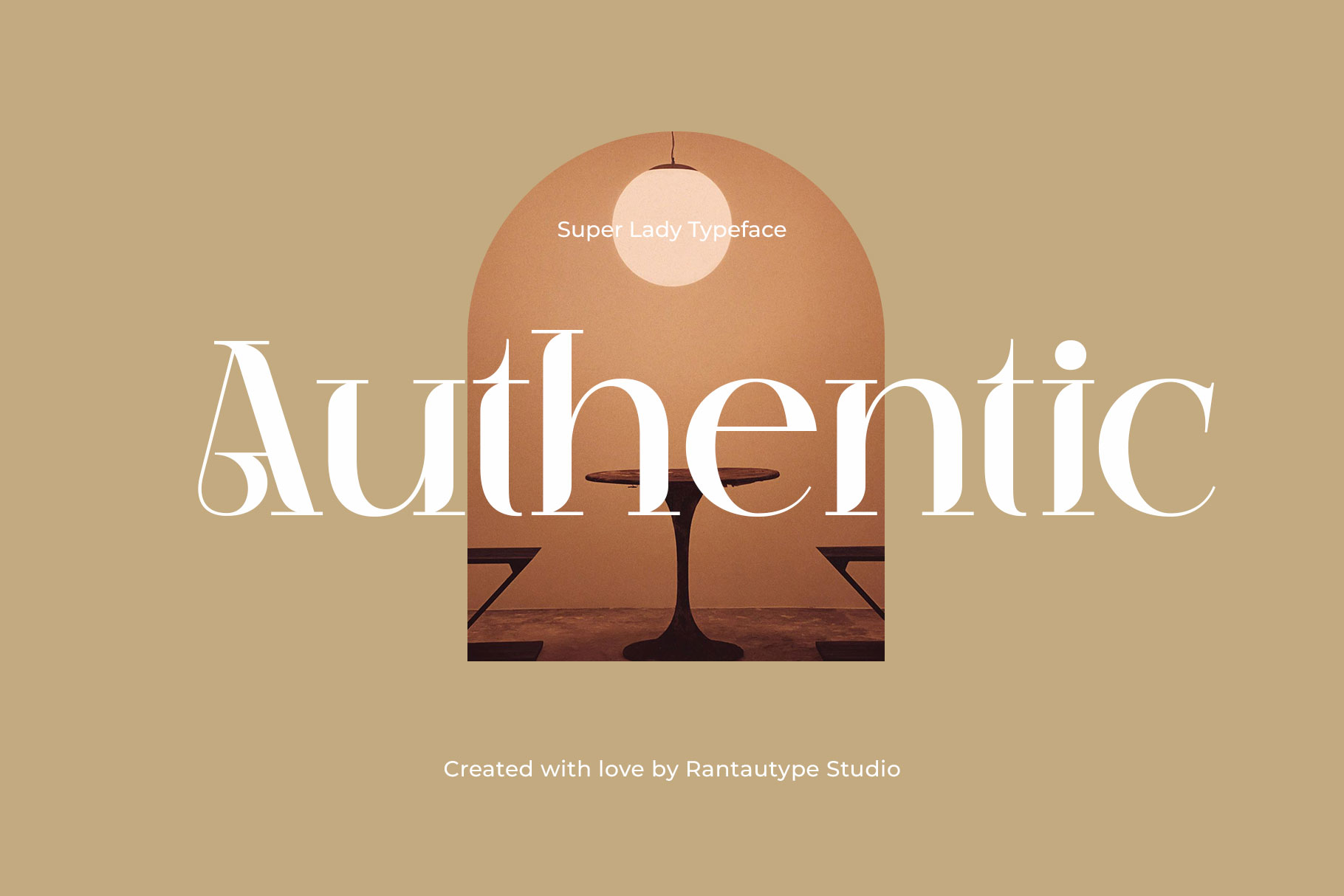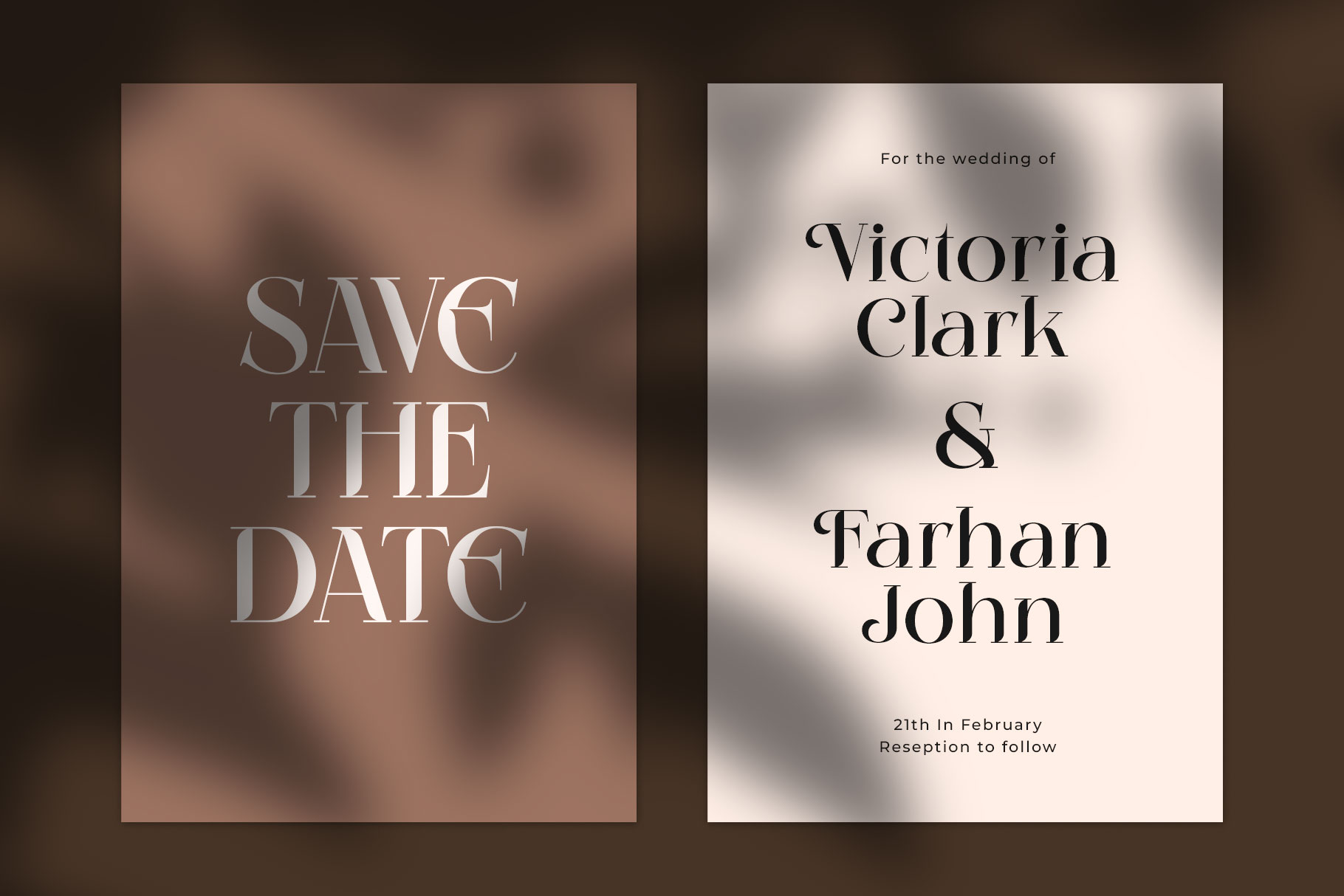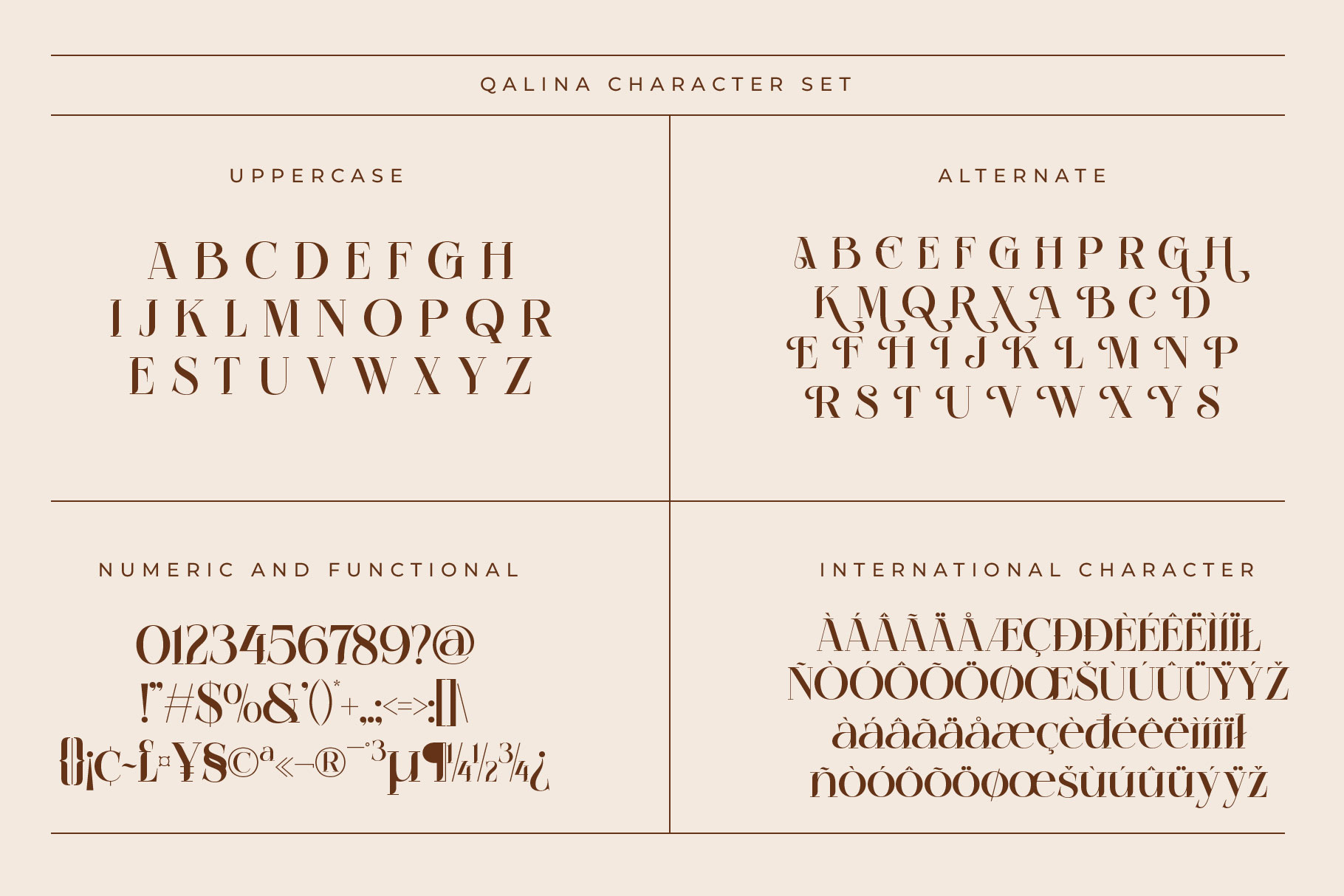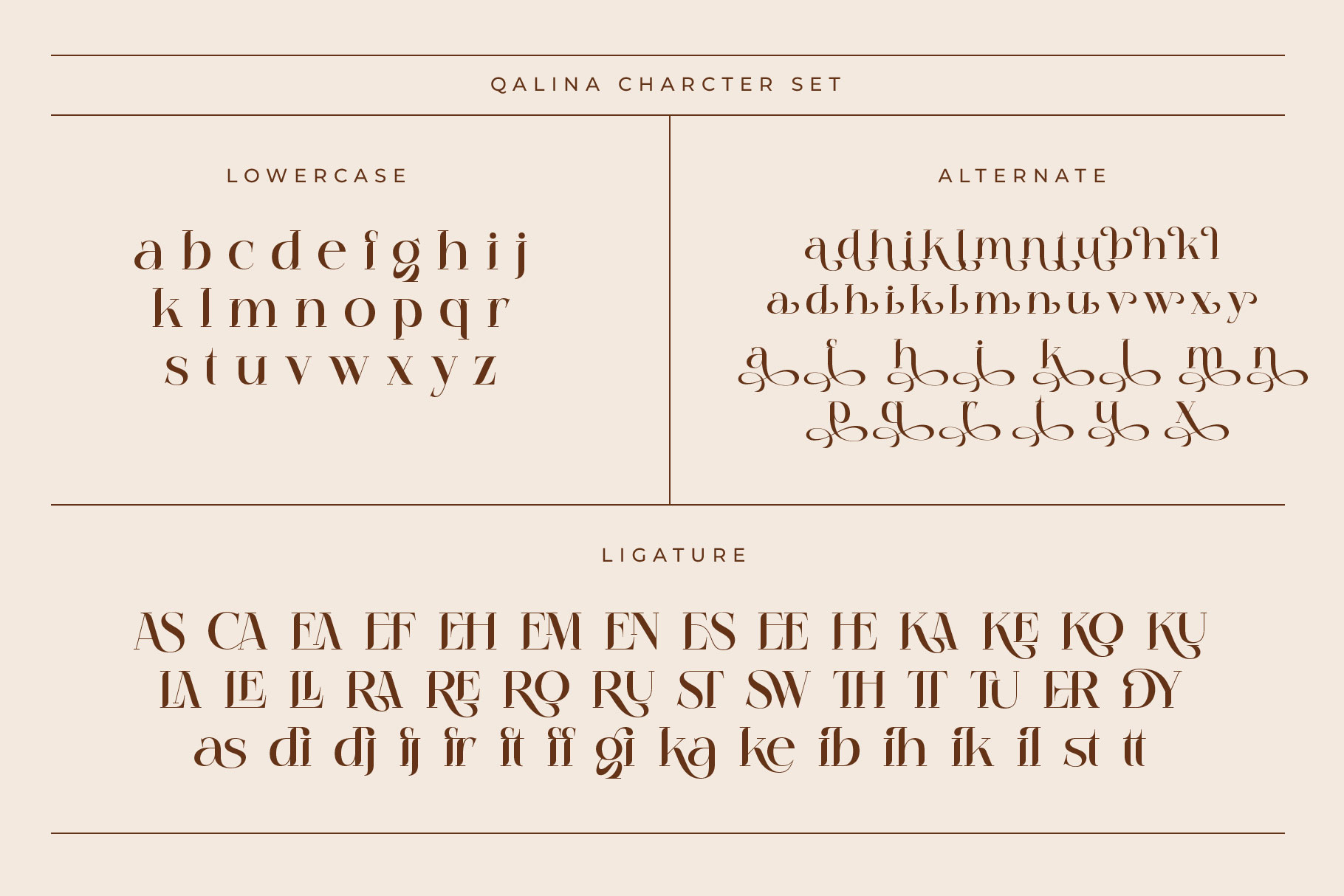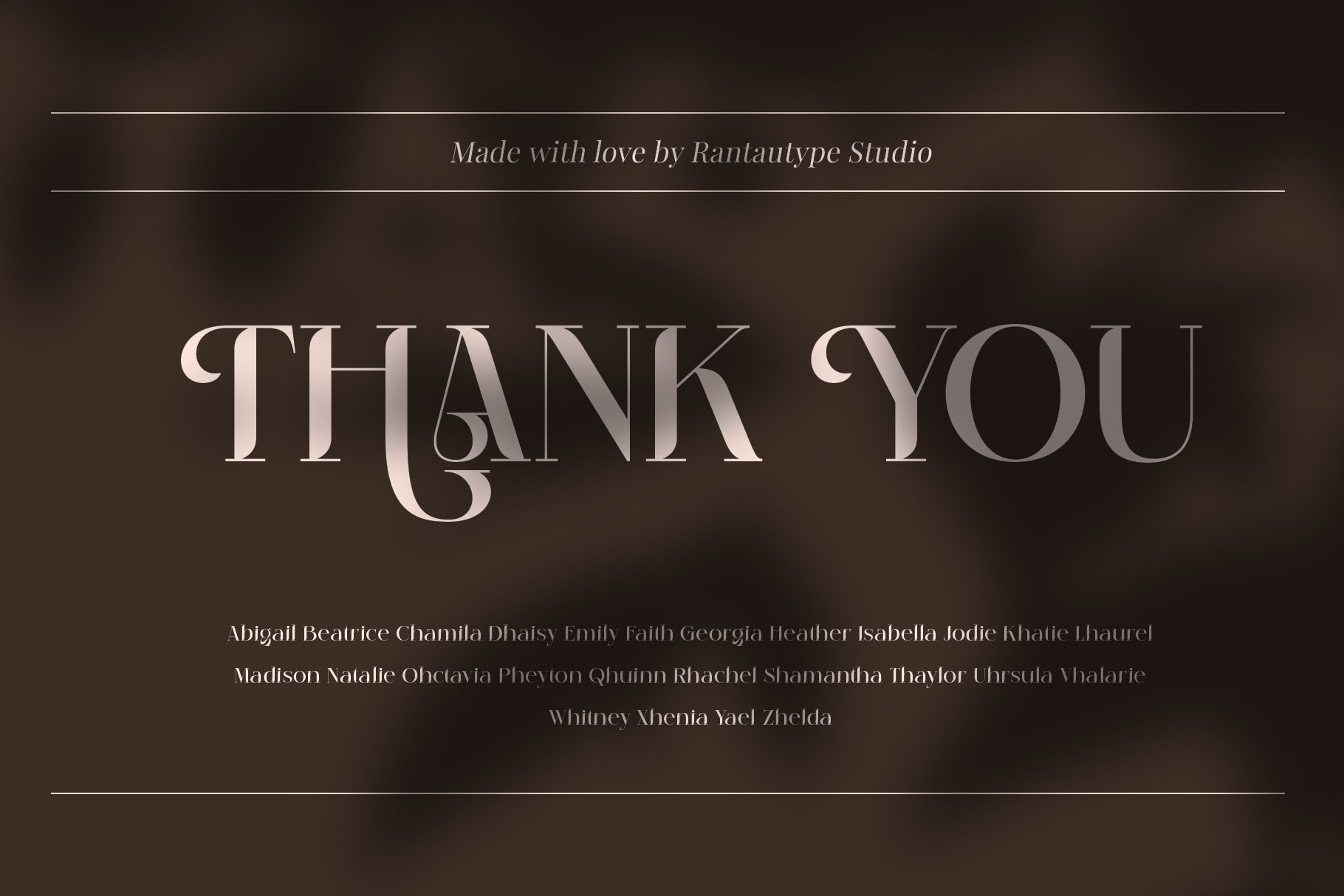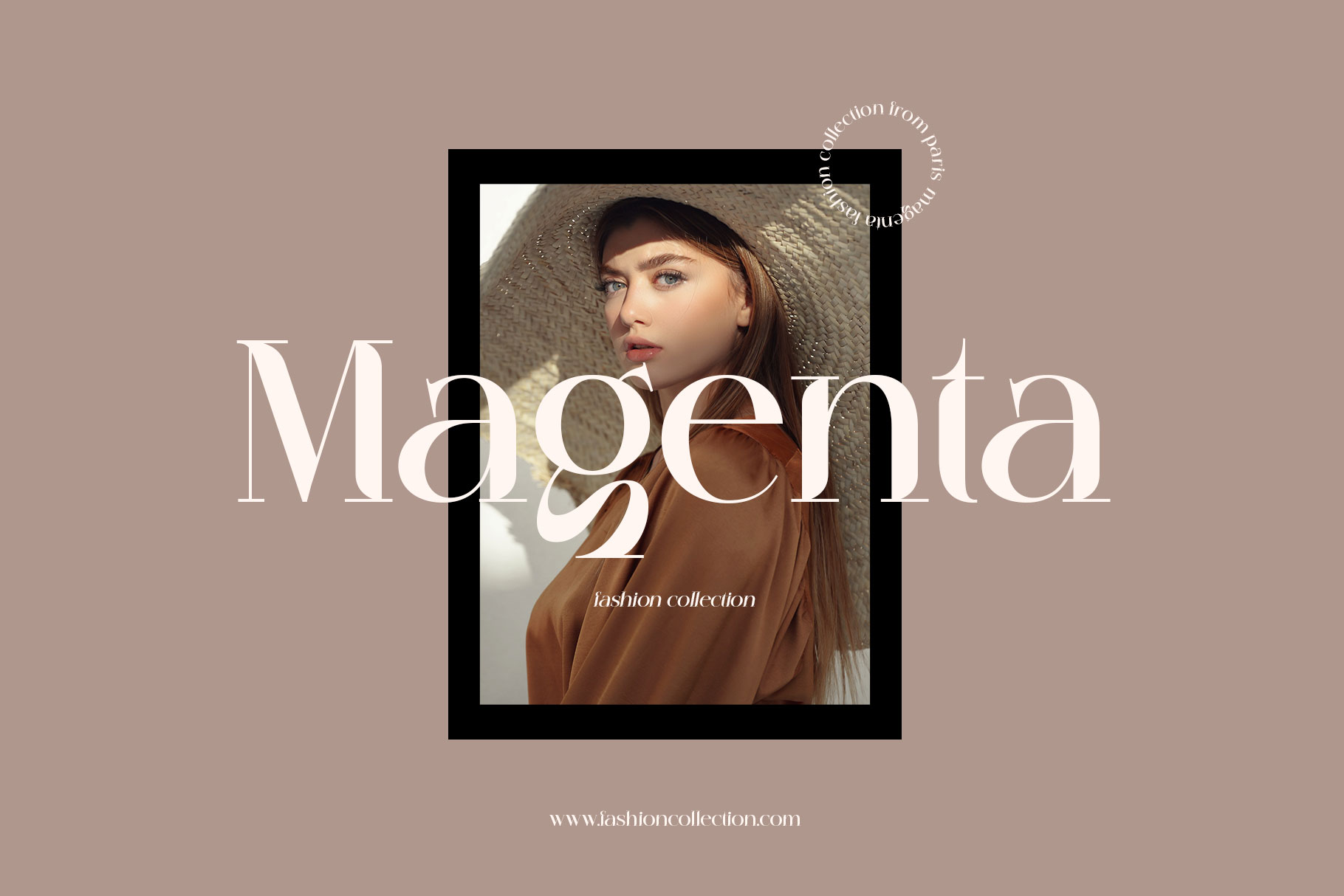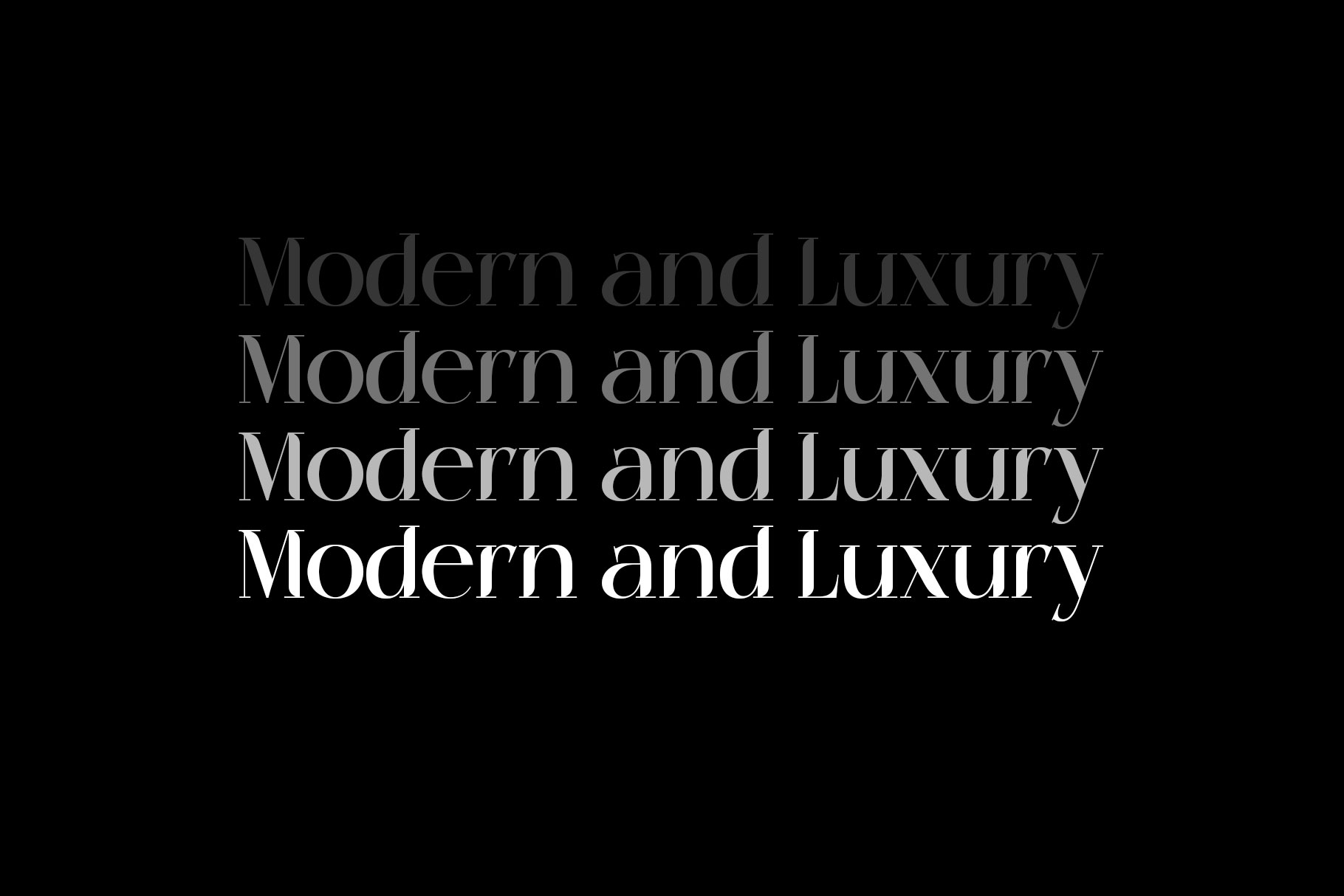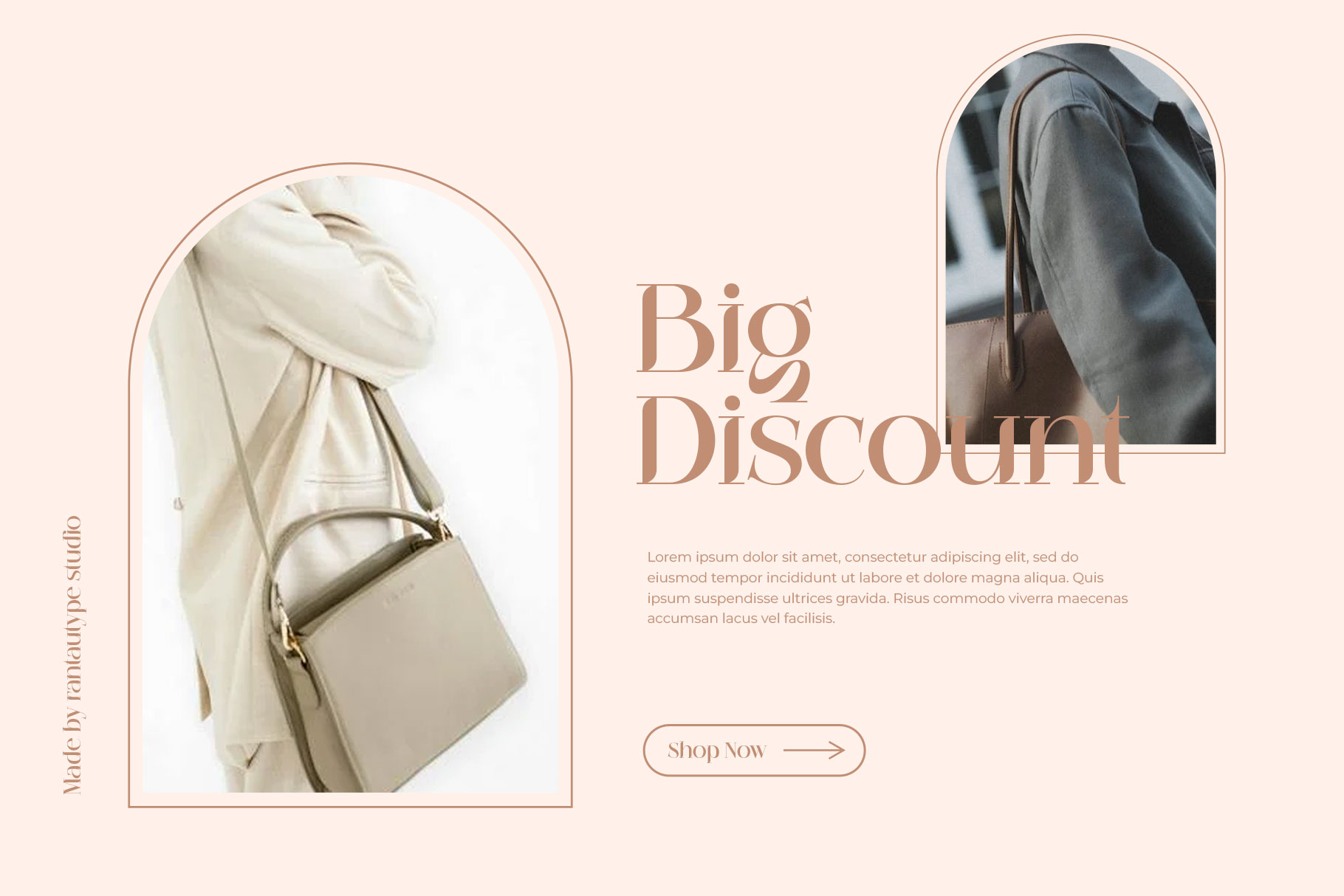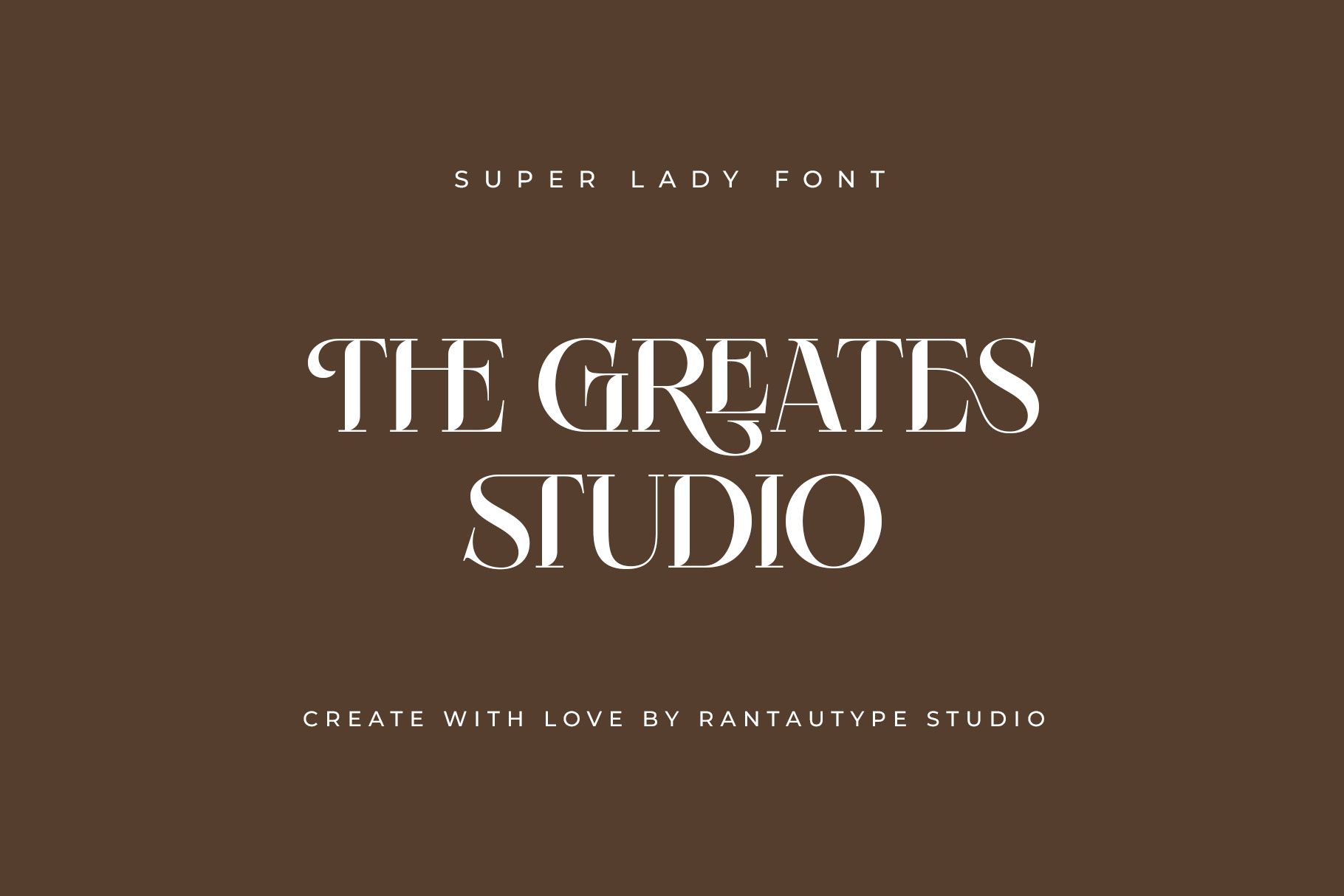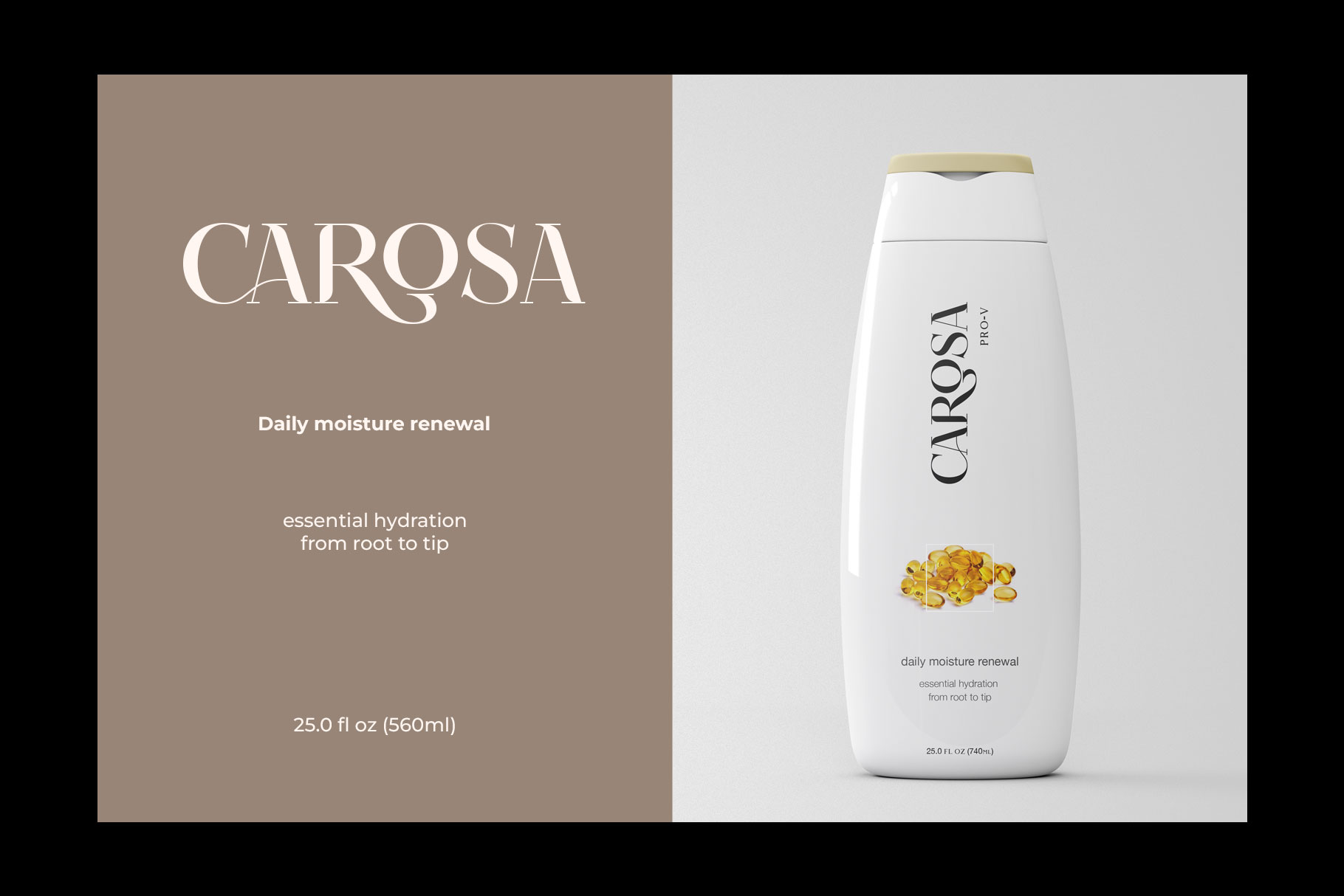
Qalina Modern Serif Font
Qalina Lady is a modern serif font with unique shape and memoriable. We love how Each character is formed makes this font look very elegant and classy. Qalina come with alternate, ligature and already support multingual accent character. Qalina typeface will make your design bright shine.
Qalina is a perfect choice for any creative endeavor, chic, lifestyle design such as logos, advertisements, watermark on photography, stationery, branding project, display and magazine, invitation, corporate brand, product design, label, business project and many other project need elegant taste.